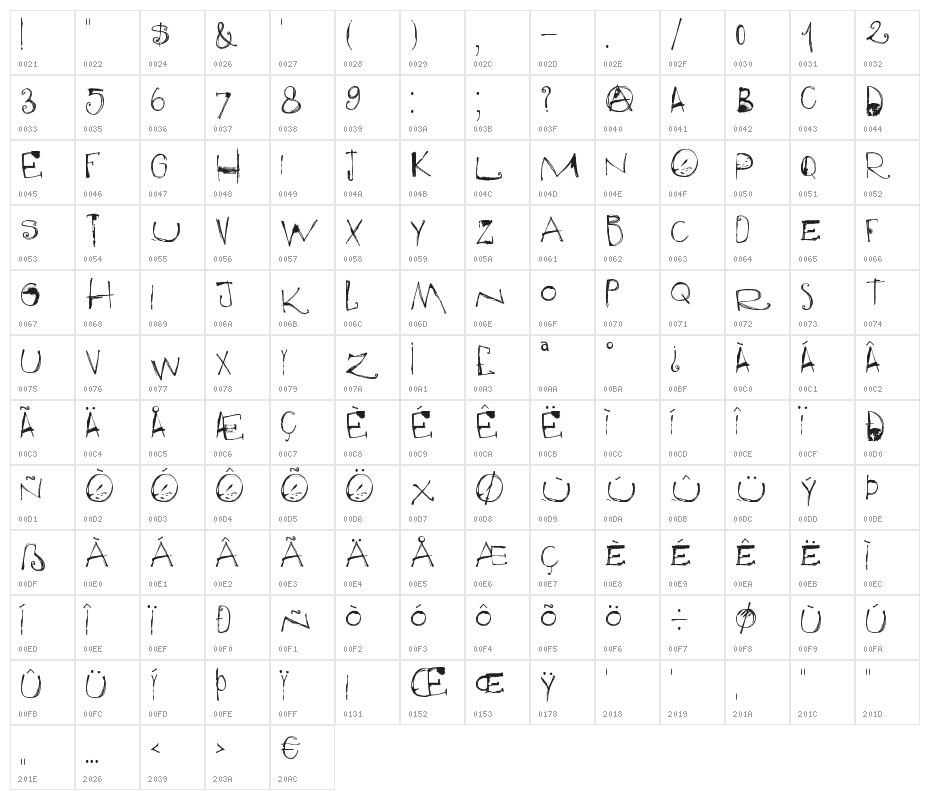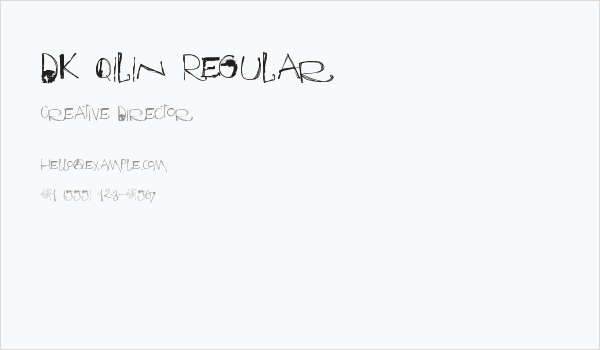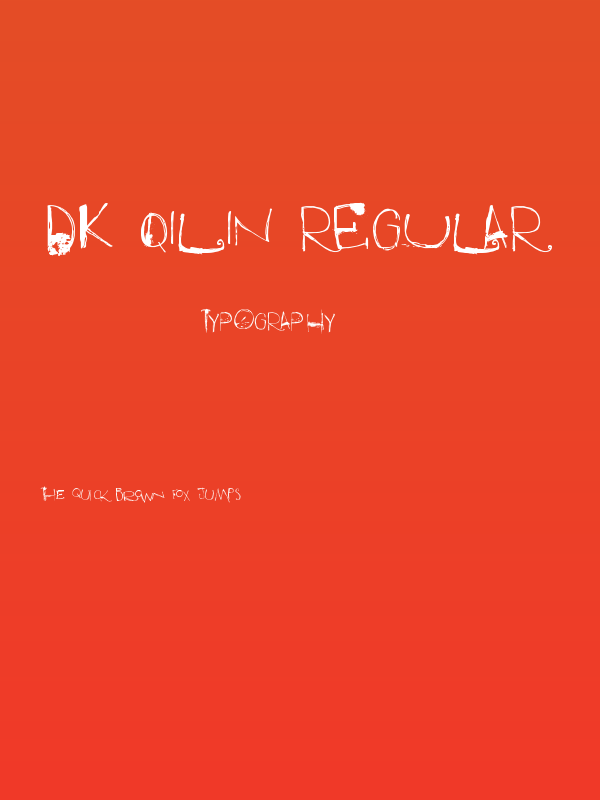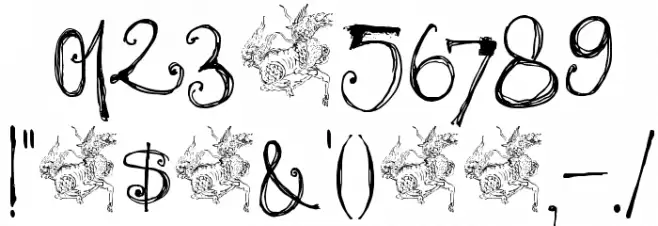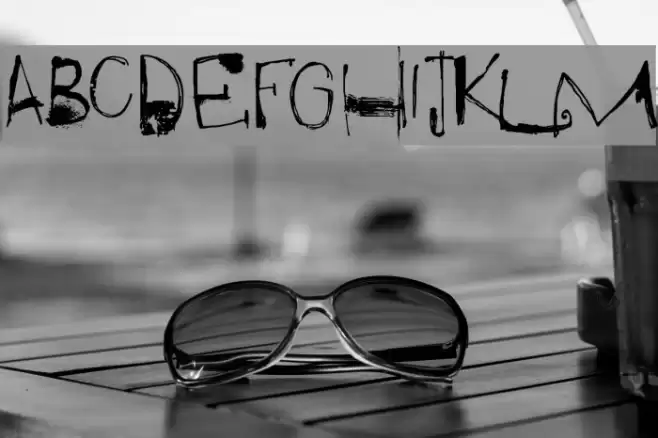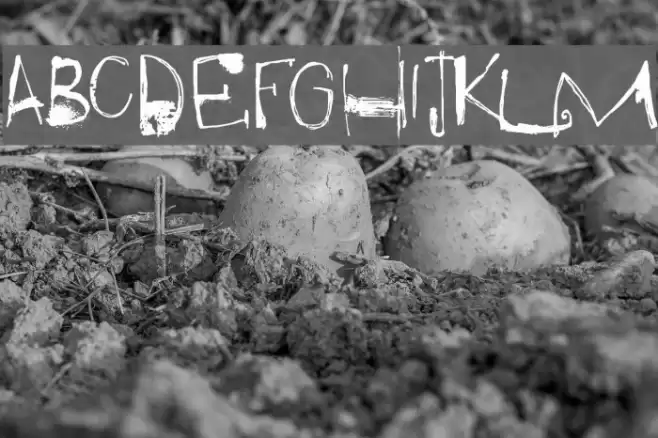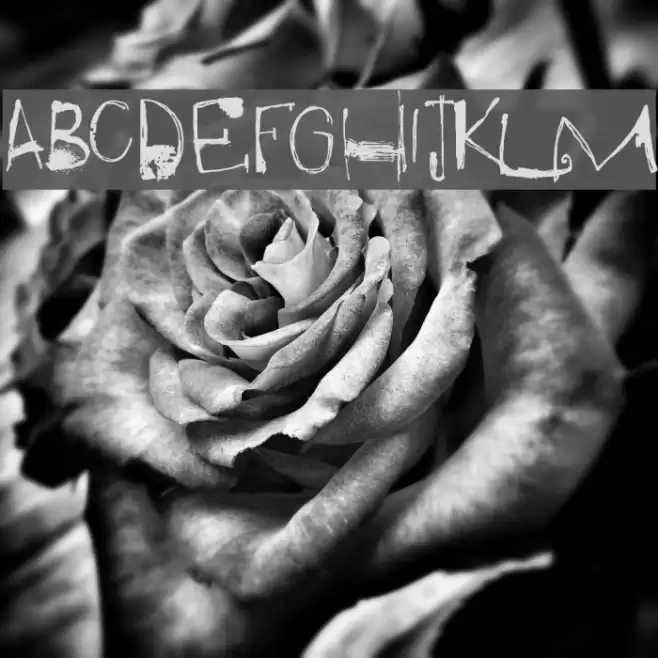
DK Qilin Regular Font
DK Qilin Regular Description
This font features a highly decorative and artistic style, characterized by its intricate and whimsical design elements. Each character is uniquely crafted with a blend of bold strokes and delicate, swirling details, giving it a hand-drawn appearance. The uppercase and lowercase letters maintain a consistent artistic theme, with varying levels of embellishment that add to its visual interest. The numerals and special characters are equally ornate, incorporating elaborate designs that make them stand out. This font's distinct style makes it suitable for creative and expressive projects where a touch of fantasy or artistic flair is desired.
| Use Case | Logos, Posters, Creative Invitations |
| Proposed Projects | Ideal for fantasy-themed designs, artistic posters, unique branding, and creative invitations. |